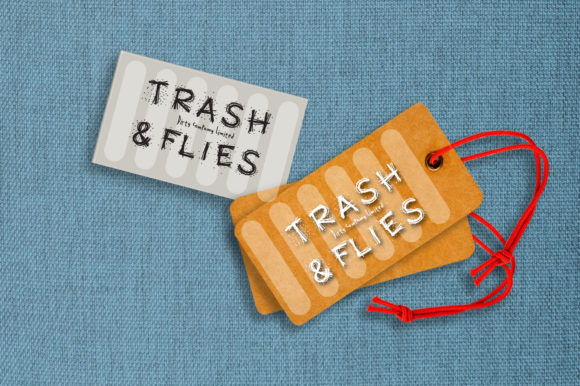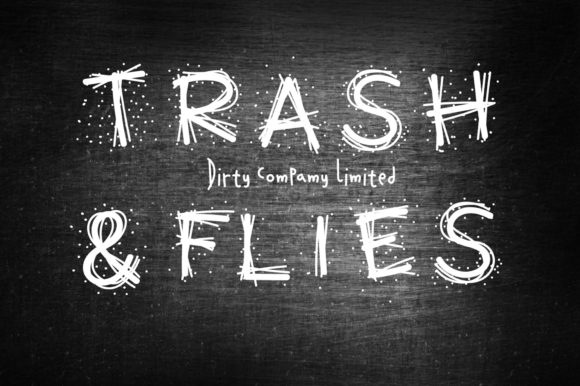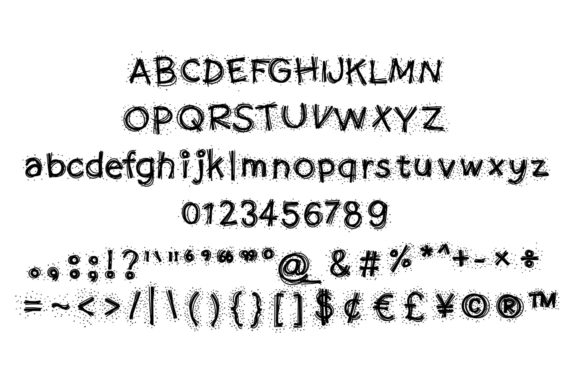
Unleash Your Creativity with Dirty Bits Font
Have you ever stared at a blank canvas, waiting for inspiration to strike? You know, that moment when you’re trying to come up with the perfect design concept, but your mind is as blank as a piece of paper? That’s exactly when I fell in love with Dirty Bits Font. It’s a game-changer for designers who want to add a touch of personality to their work.
Dirty Bits Font is a casual and fun display font that’s perfect for creating eye-catching logos, branding, and quotes. Every letter has a unique and quirky touch, which will make your design come alive! Whether you’re a seasoned pro or just starting out, Dirty Bits Font is a valuable addition to your design toolkit.
Dirty Bits Font Key Features
- Font Family: Dirty Bits Font is a unique, hand-drawn sans-serif font.
- Size: The font family includes multiple weights, ranging from Thin to Extra Bold, to cater to various design needs.
- Resolution: Designed to be high-resolution, making it suitable for use in print materials, digital displays, and online content.
- Unique Characteristics: Dirty Bits Font features a distressed, vintage aesthetic with subtle texture and imperfections, adding a touch of uniqueness to designs.
Dirty Bits Font Review
Overall, I’d say the Dirty Bits Font is a solid addition to any designer’s toolkit. It’s got a certain je ne sais quoi that sets it apart from more traditional sans-serif fonts.
- Unique aesthetic: The Dirty Bits Font has a distinctive, gritty feel that’s perfect for projects that need a bit of edge.
- High contrast: The bold lines and thick strokes make it easy to read, even at small font sizes.
- Great for headings: The font’s playful, energetic vibe makes it perfect for headings and titles.
- Not ideal for body text: While the font is great for headings, it can be a bit overwhelming for large blocks of body text.
- Limited language support: Some languages may not render as smoothly as others, so be sure to test it thoroughly before using it for a project.
- May not be suitable for formal projects: The font’s playful vibe may not be suitable for more formal projects or corporate materials.
In general, I’d recommend the Dirty Bits Font for projects that need a bit of personality and flair. Just be mindful of its limitations, and it’s sure to add a touch of creativity to your designs.
Getting the Most Out of Dirty Bits Font
Dirty Bits Font is perfect for adding a touch of grunge or vintage flair to your designs. To get the most out of it, experiment with different font sizes, colors, and styles to create unique and eye-catching effects.
Dirty Bits Font is ideal for use in:
– Music festival or concert posters
– Vintage-inspired advertisements
– Grunge or punk rock-themed designs
– Retro-style logos and branding
Alternatives to Dirty Bits Font for Designers
Great Vibes Font is a modern, elegant script font ideal for creating beautiful typography in logo designs, headings, and quotes. It’s perfect for designers who want to add a touch of sophistication and playfulness to their work.
Comparison to Dirty Bits Font: While Dirty Bits Font has a more distressed and vintage feel, Great Vibes Font is more polished and refined. Great Vibes Font is suitable for a wider range of design projects, from fashion to wedding invitations.
Pacifico Font is a beautiful, handwritten font that’s perfect for creating a relaxed, beachy vibe in your designs. It’s ideal for logos, headings, and body text in travel, lifestyle, and food-related projects.
Comparison to Dirty Bits Font: Pacifico Font has a more laid-back and casual feel compared to Dirty Bits Font. While Dirty Bits Font is perfect for edgy and avant-garde designs, Pacifico Font is better suited for designs that require a sense of calmness and serenity.